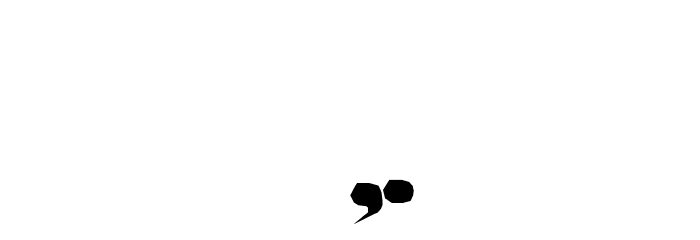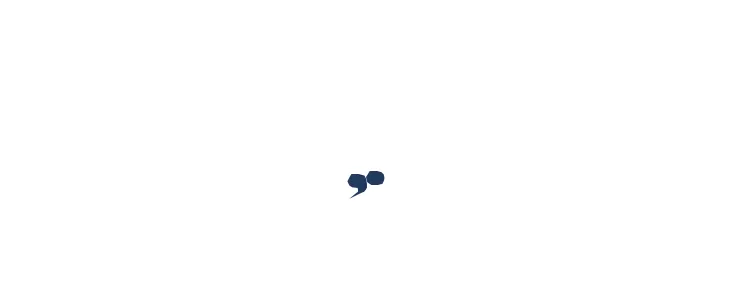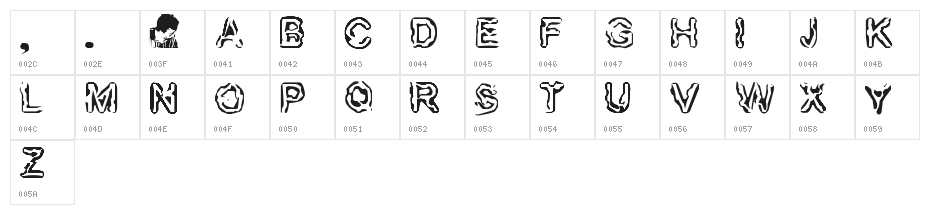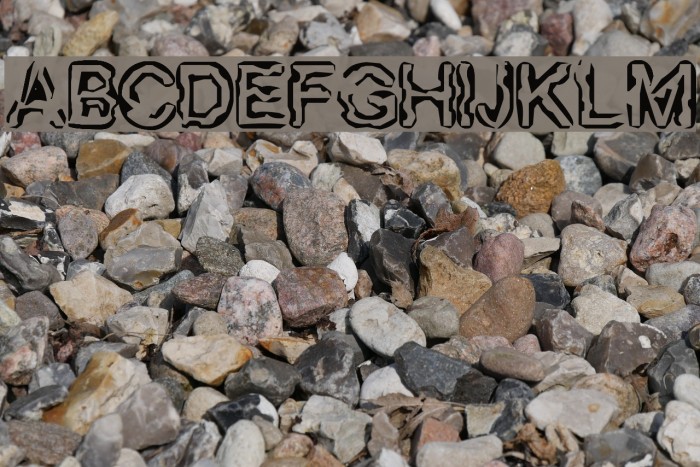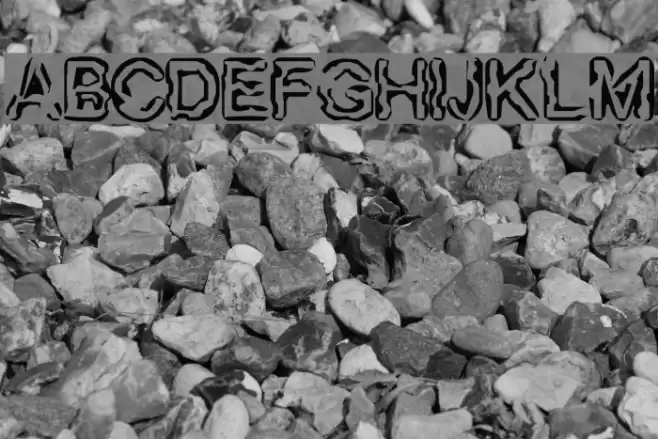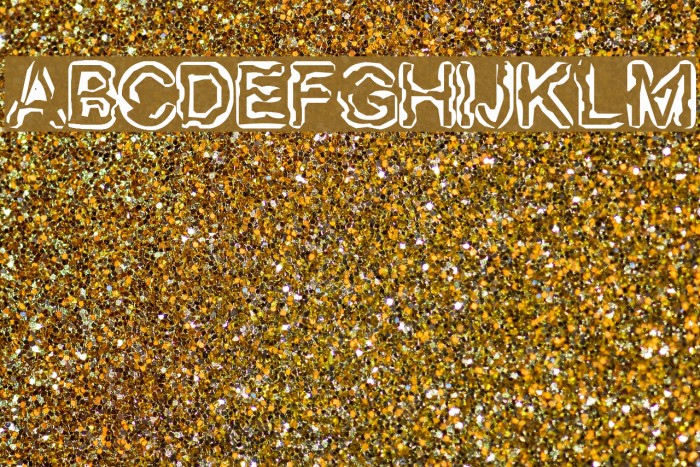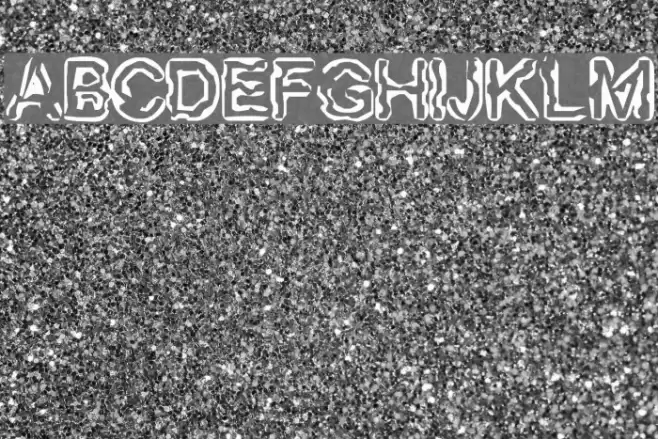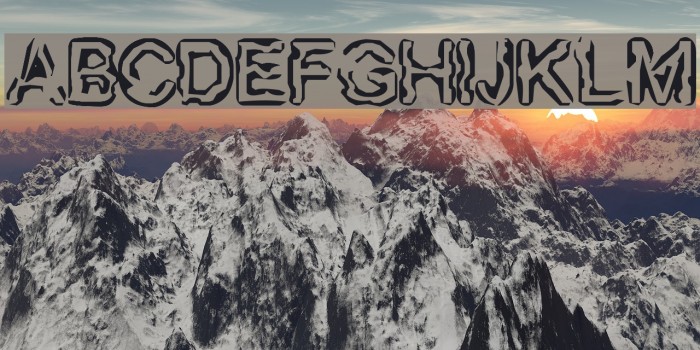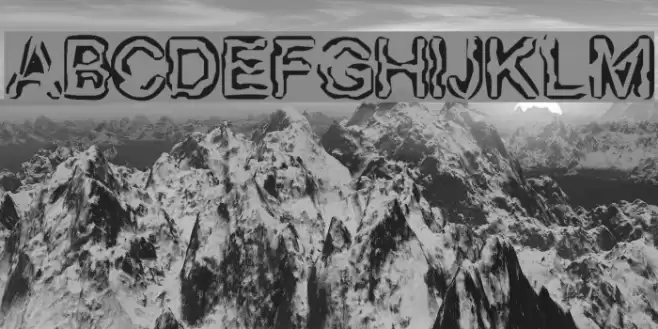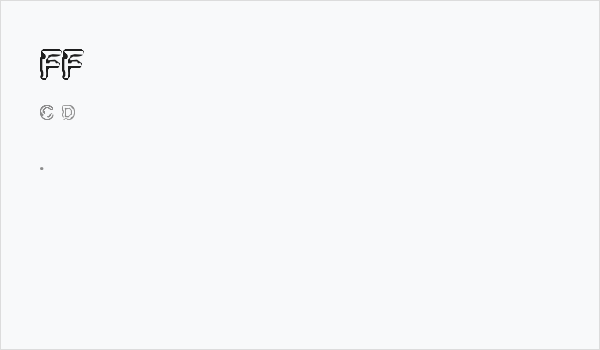
FingeredFlesh Font
FingeredFlesh Description
This font features a bold and edgy design with a distressed, grungy texture that gives each character a unique, rugged appearance. The uppercase letters are prominently styled with jagged edges and irregular shapes, creating a sense of movement and energy. The font's overall aesthetic is reminiscent of urban street art or graffiti, making it ideal for projects that require a bold, eye-catching typeface. The spacing between characters is relatively tight, enhancing the compact and impactful look of the text. This font is perfect for designs that aim to convey a sense of rebellion or non-conformity.
| Overall Style | Urban, Grunge, Edgy |
| Proposed Projects | Ideal for album covers, streetwear branding, posters, and urban-themed designs. |